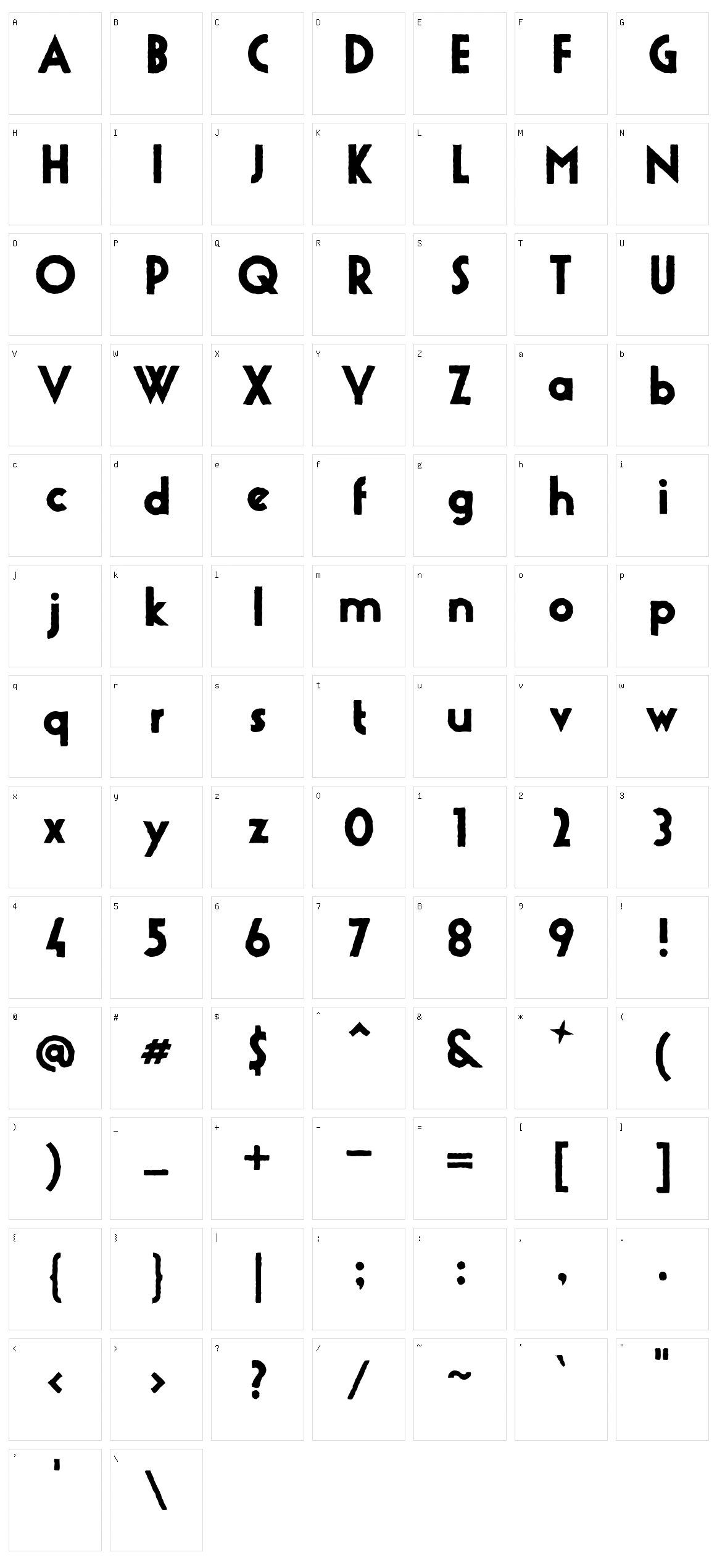
Urban Stone
Designed by: Roland Huse Design
Category: Eroded
ÿþURBAN STONE is a grunge version  URBAN TOUR font family (Urban Tour Black).
Contains 13 stylistic alternates : A A Æ Æ B B E E F F G G O O P P R R S S W W & & * * and 5 contextual alternates (which are actually catchwords) : THE THE IN IN OF OF TO TO WITH WITH Please Note: -This font has been basically designed for poster display in black weight and big size. The rest of the family is a derivative work of it. I can t guarantee if it works well on small size print. - Future updates may follow in the near future or on request For clean version and the whole family (Urban Tour) please visit